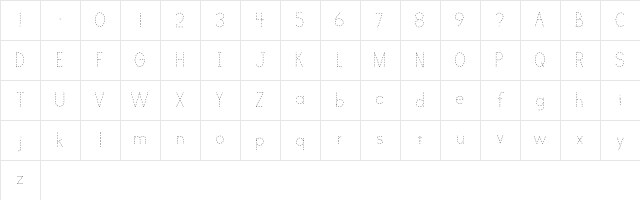
Print Clearly Dashed Regular
Design Context for Print Clearly Dashed
Print Clearly Dashed is a composed and adaptable typeface that performs quietly and consistently across a wide range of design contexts.